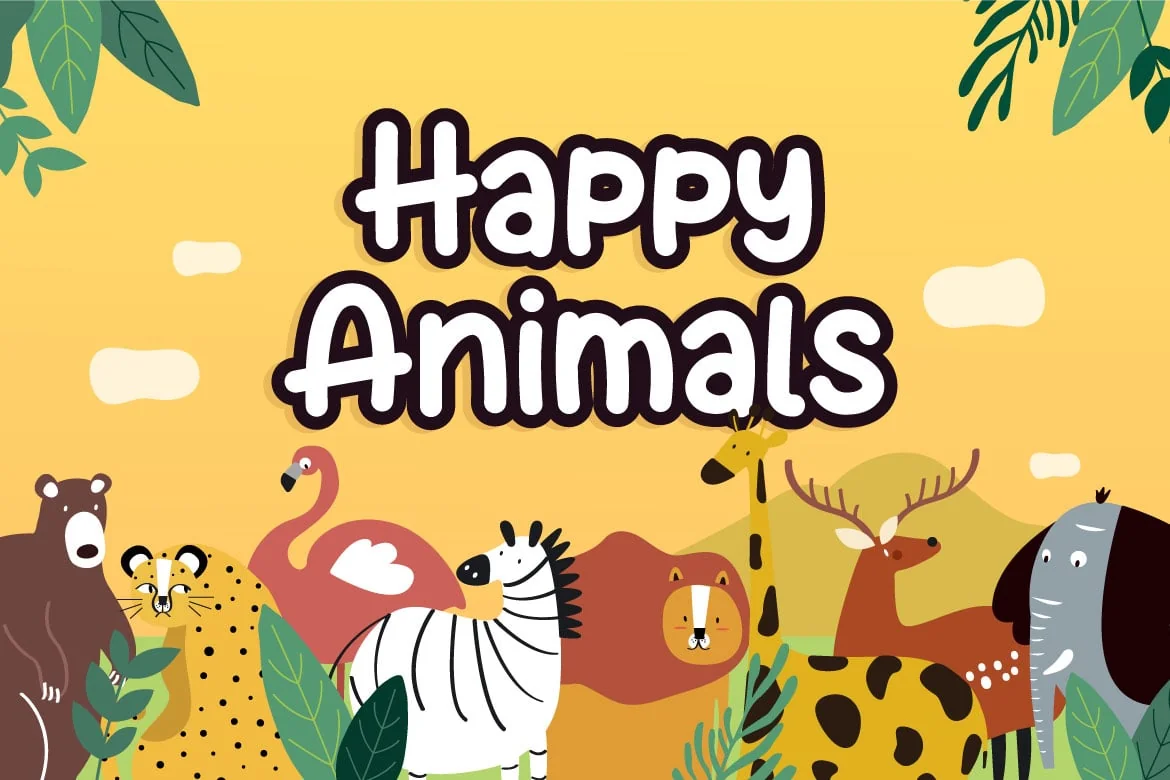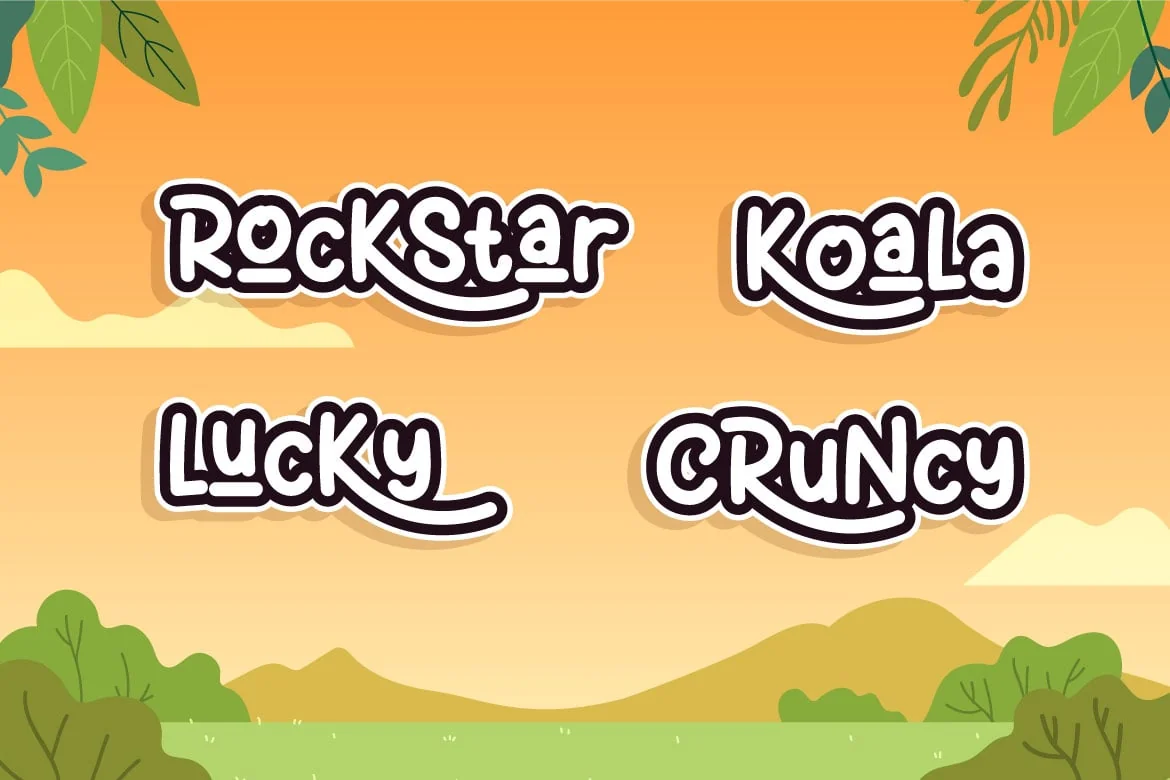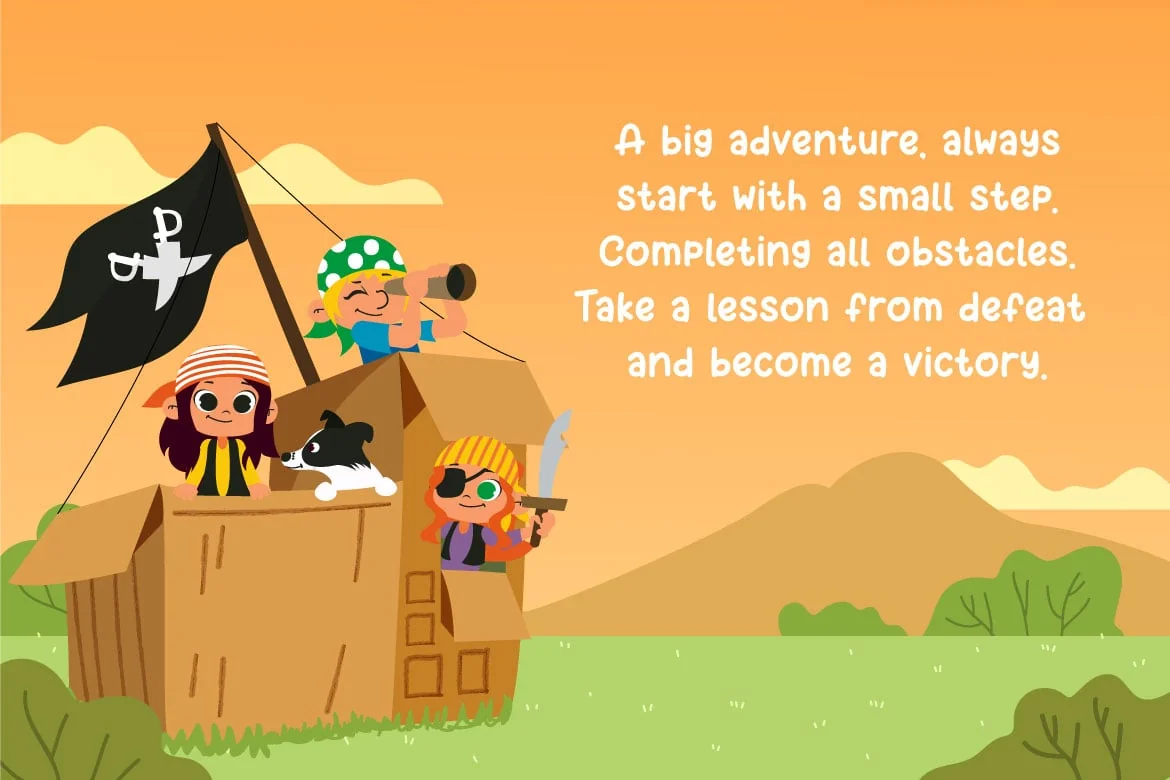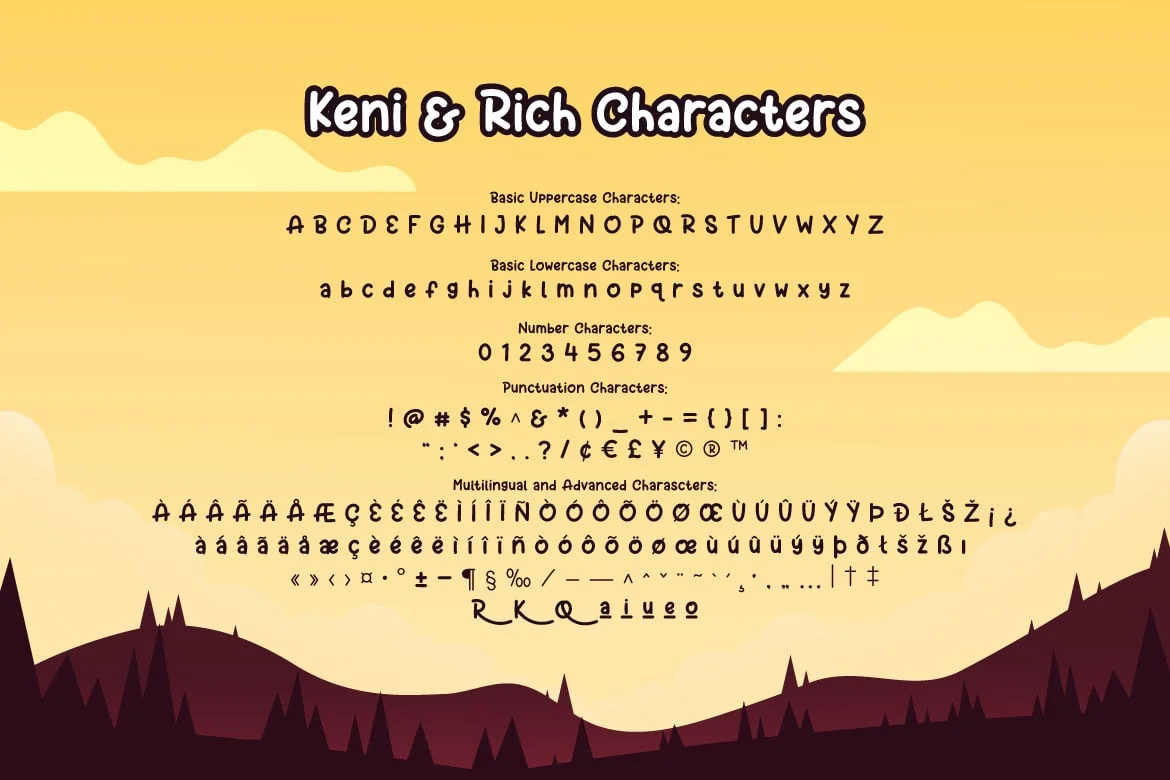
Keni&Rich – Fun Cartoon Display Font
Introducing you Keni&Rich, a fun cartoon display font!
This font is suitable for comic, children book, flyer, poster, book cover, card, merchandise, etc.
Keni&Rich has lowercase and uppercase style. Try this font and feel the happiness inside the words!